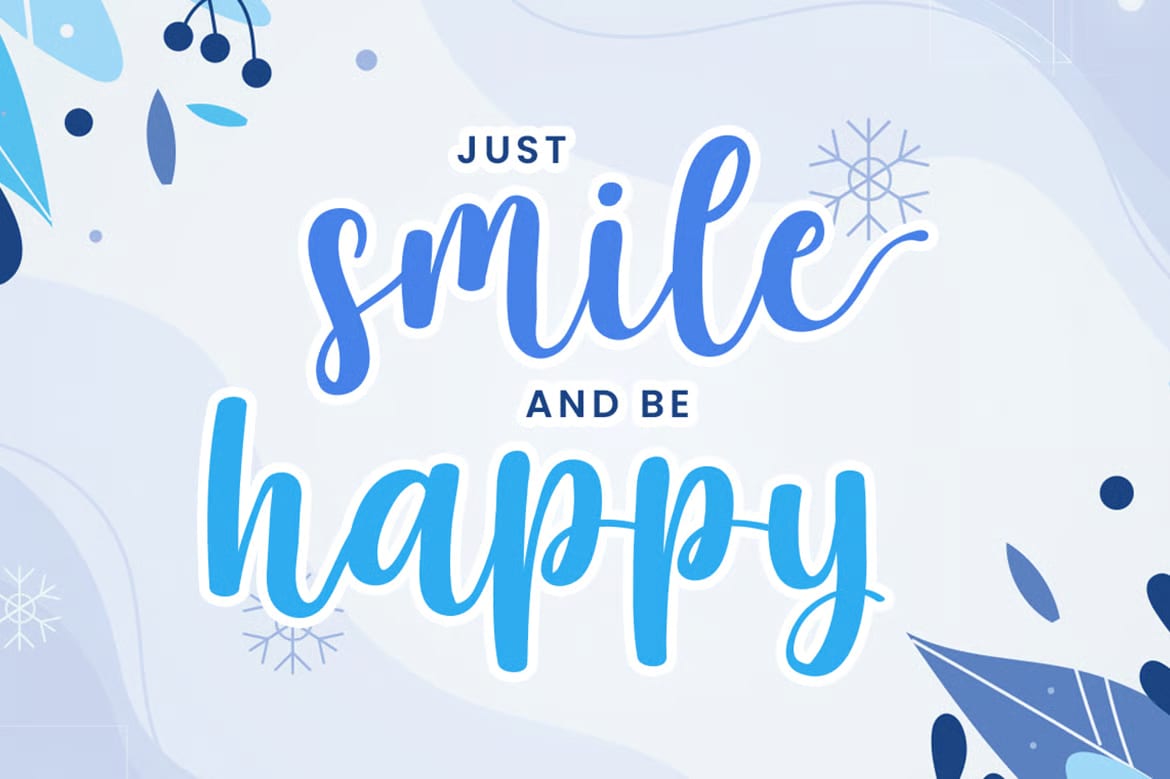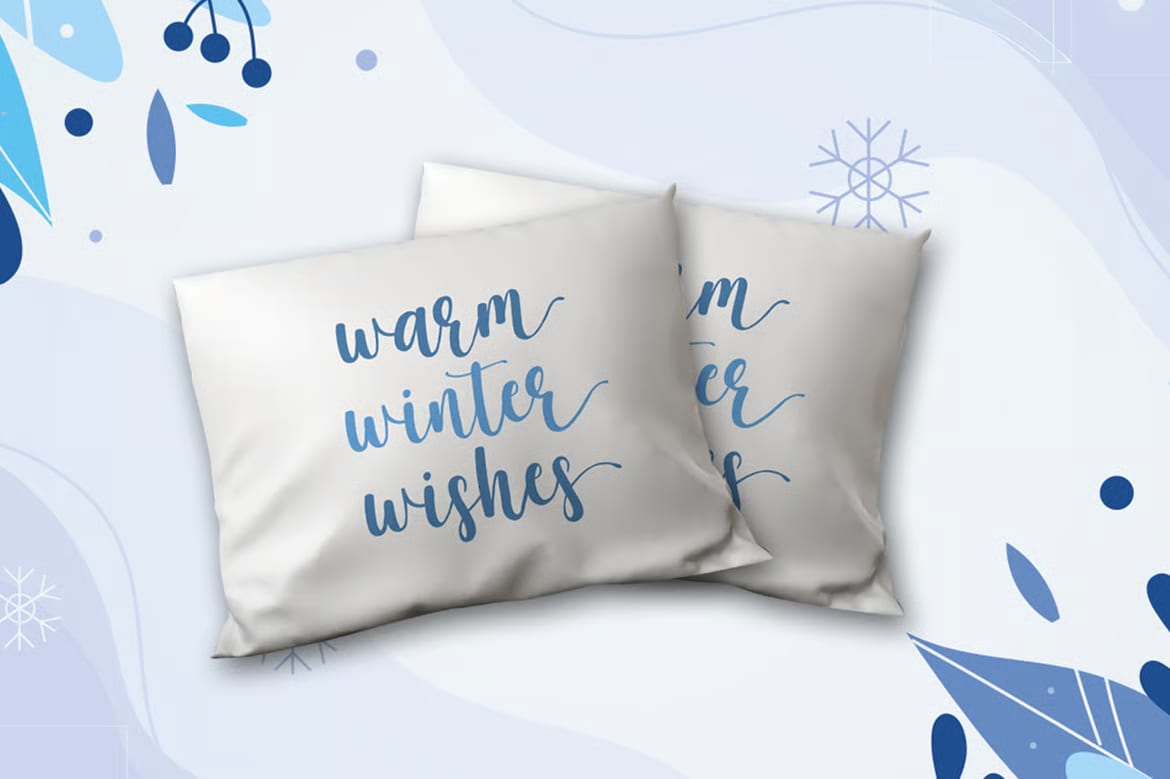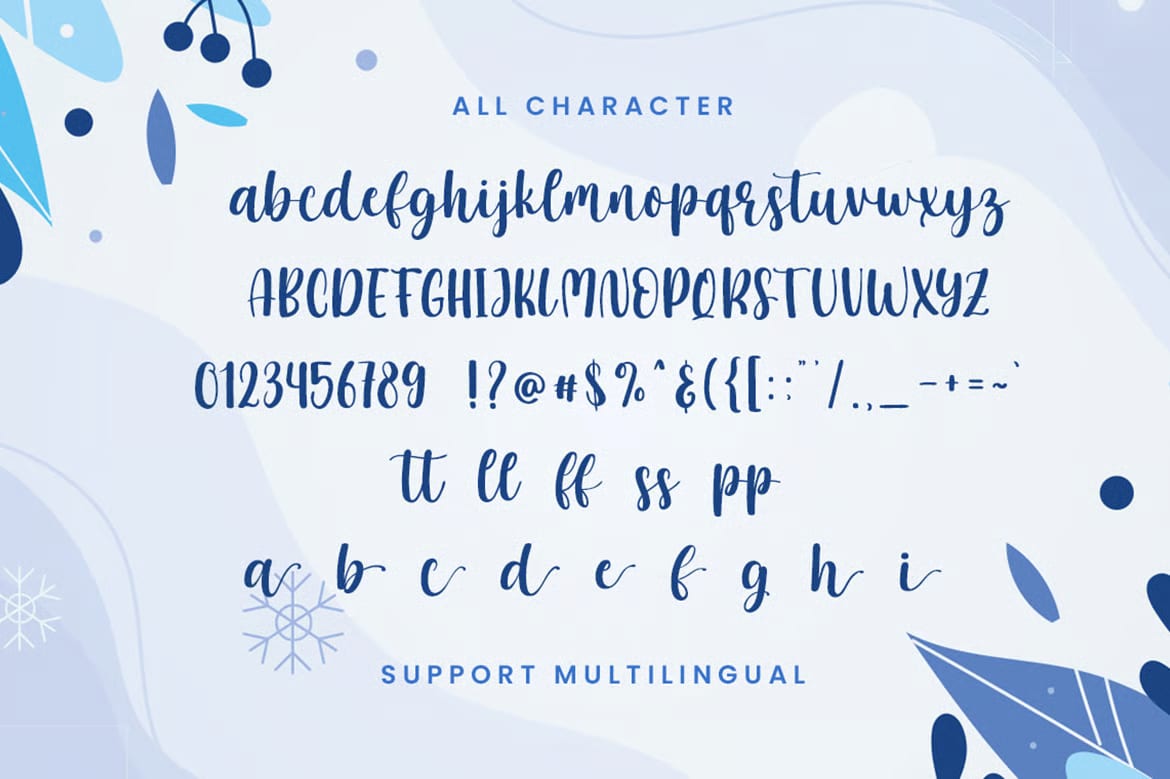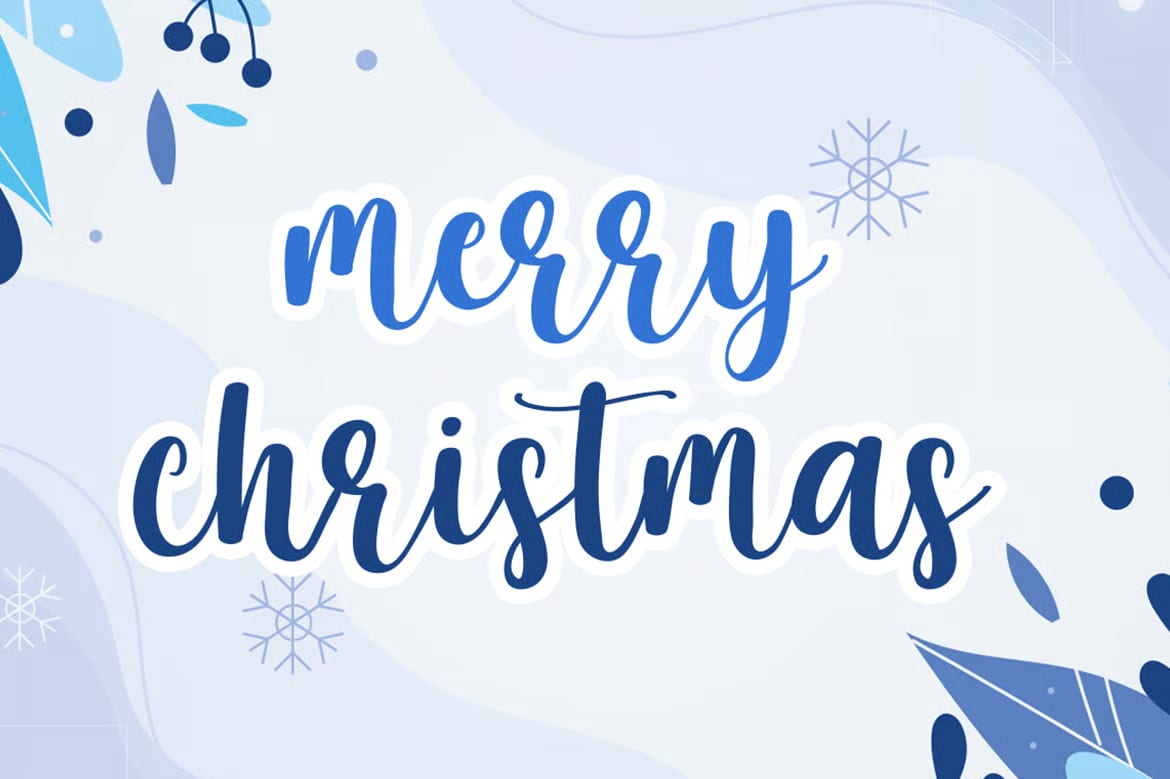
This is a modern calligraphy font with a playful, handwritten feel. It has a clean and stylish look that works well when you want something friendly and festive without looking too formal or too decorative.
It fits naturally into Christmas-themed designs, but it can also be used for children’s projects and other cheerful creative work. The letterforms have a lively personality, which makes the font a good choice for headlines, short quotes, greeting-style text, and simple seasonal graphics.
The font is PUA encoded, so the extra glyphs and swashes are easy to access when you want a little more variety in your lettering. It also supports multilingual text, which makes it more flexible for different kinds of design projects.
With its smooth flow and modern handwritten style, this font is a nice option for anyone looking to add a warm, festive touch to their work. It feels suitable for both holiday designs and casual creative layouts where a personal handwritten look is needed.